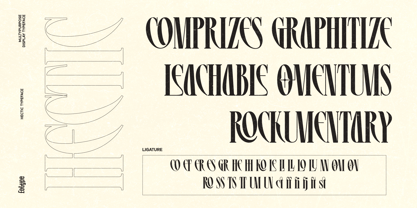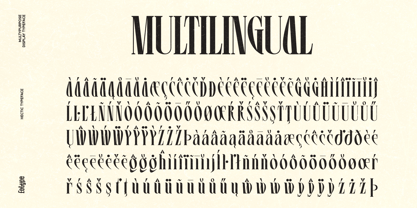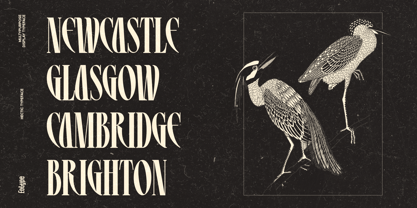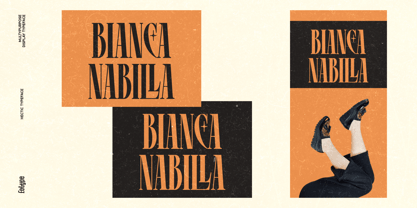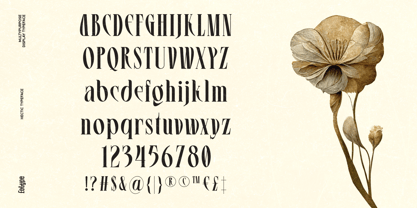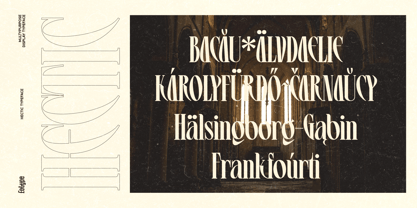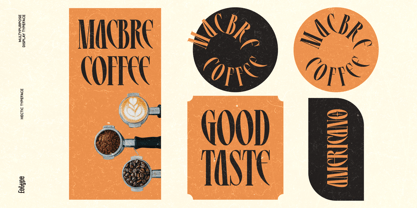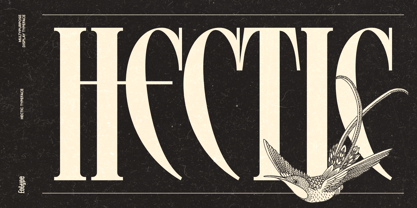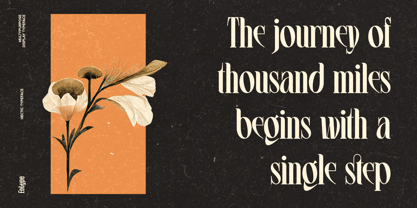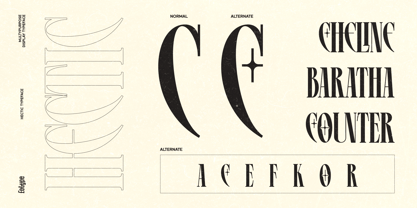
Hectic
by Eotype
The Hectic Font Family was designed by Fajar Ramadan and published by Eotype. Hectic contains 1 styles. More about this family
Hectic display fonts are typefaces designed to provide visual impact while exuding sophistication and style. Hectic display fonts can be used for headlines, headings, logos, invitations, and branding materials that prioritize aesthetic appeal.
Designers: Fajar Ramadan
Foundry: Eotype